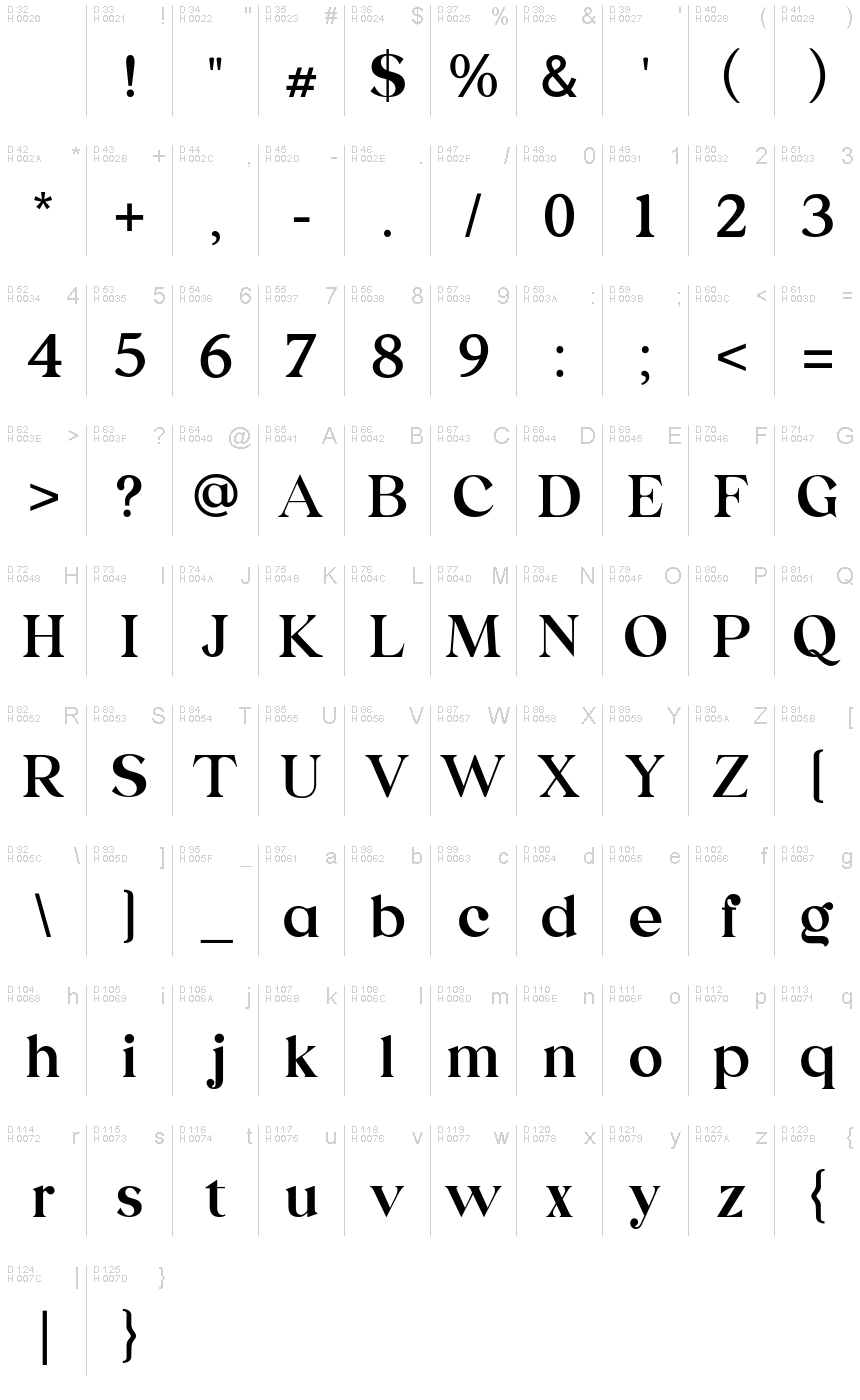
Emerland
Emerland, a serif font crafted by UI Creative, exudes a timeless elegance with its refined strokes and subtle curves. The balanced proportions and harmonious letter spacing create a visually appealing and cohesive aesthetic, evoking a sense of sophistication and refinement. This font's versatility makes it a compelling choice for a wide range of design applications, from high-end editorial layouts to impactful branding and packaging.
Emerland's distinctive character shines through in its delicate serifs and graceful ascenders, lending a touch of sophistication to any project. Its balanced structure and exceptional legibility make it a suitable option for both display and body text, allowing designers to leverage its versatility across various design contexts.